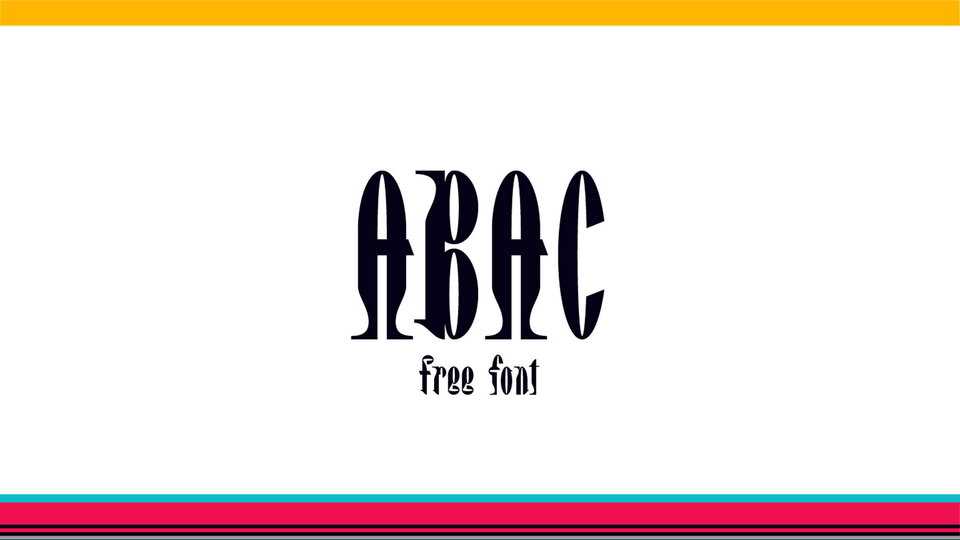
Download Abac typeface, absolutely unique decorative font family in four styles. Abac is perfect for creative typographic projects, headlines, posters, covers and much more.
Designer: Joël Maillot